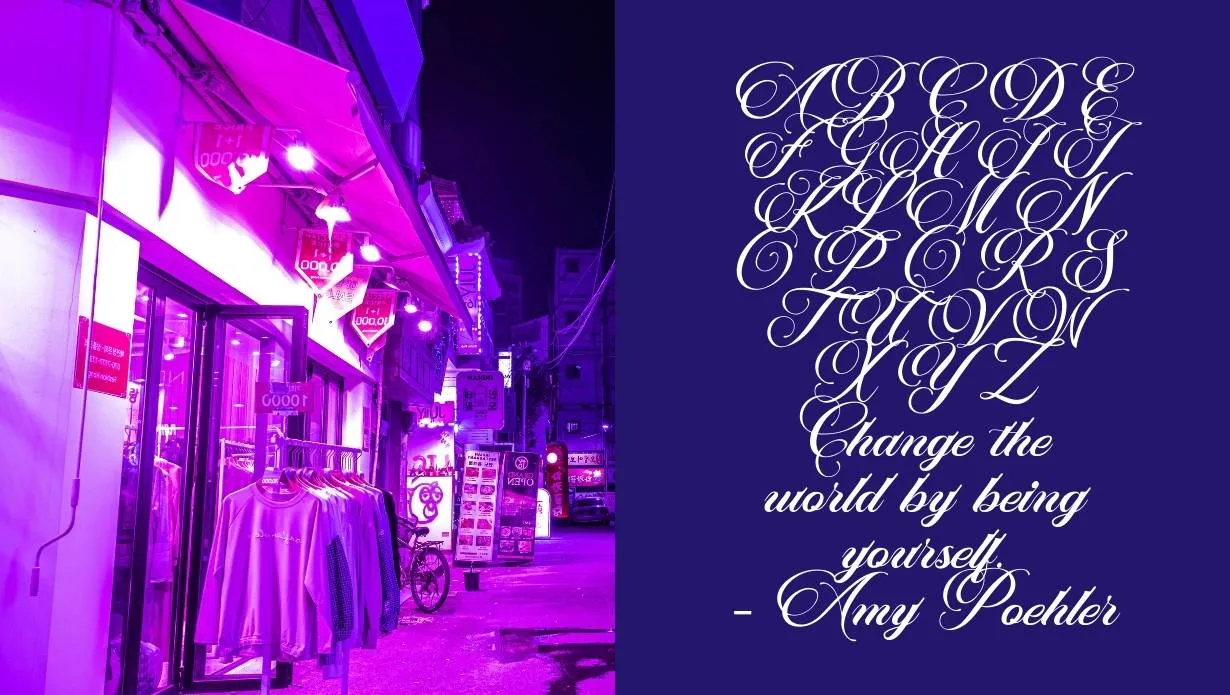
We’re going to present another stylish, unique, and innovative font style that surely enhances the elegance of your design project and makes it more attractive and appealing. Marchell Font is a calligraphy font that was crafted by Bangkit Tri Setiadi along with a solo weight and both TTF and OTF formats.
| Name | Marchell Font |
| Designer | Bangkit Tri Setiadi |